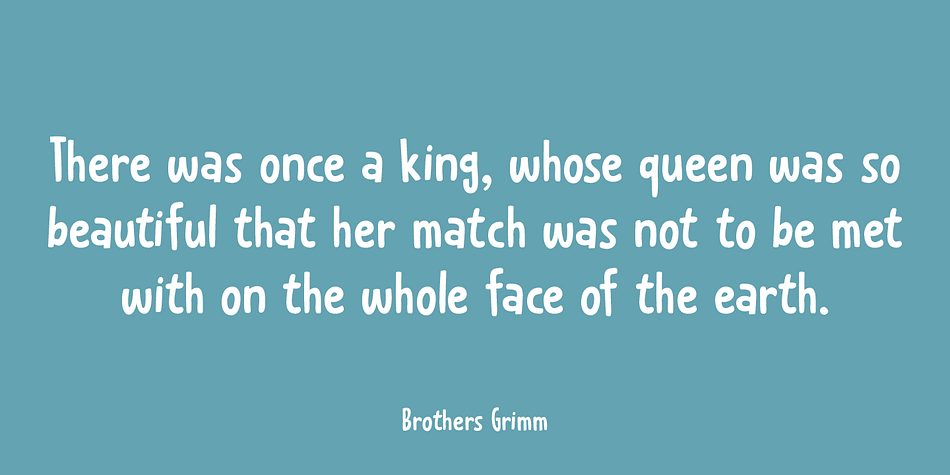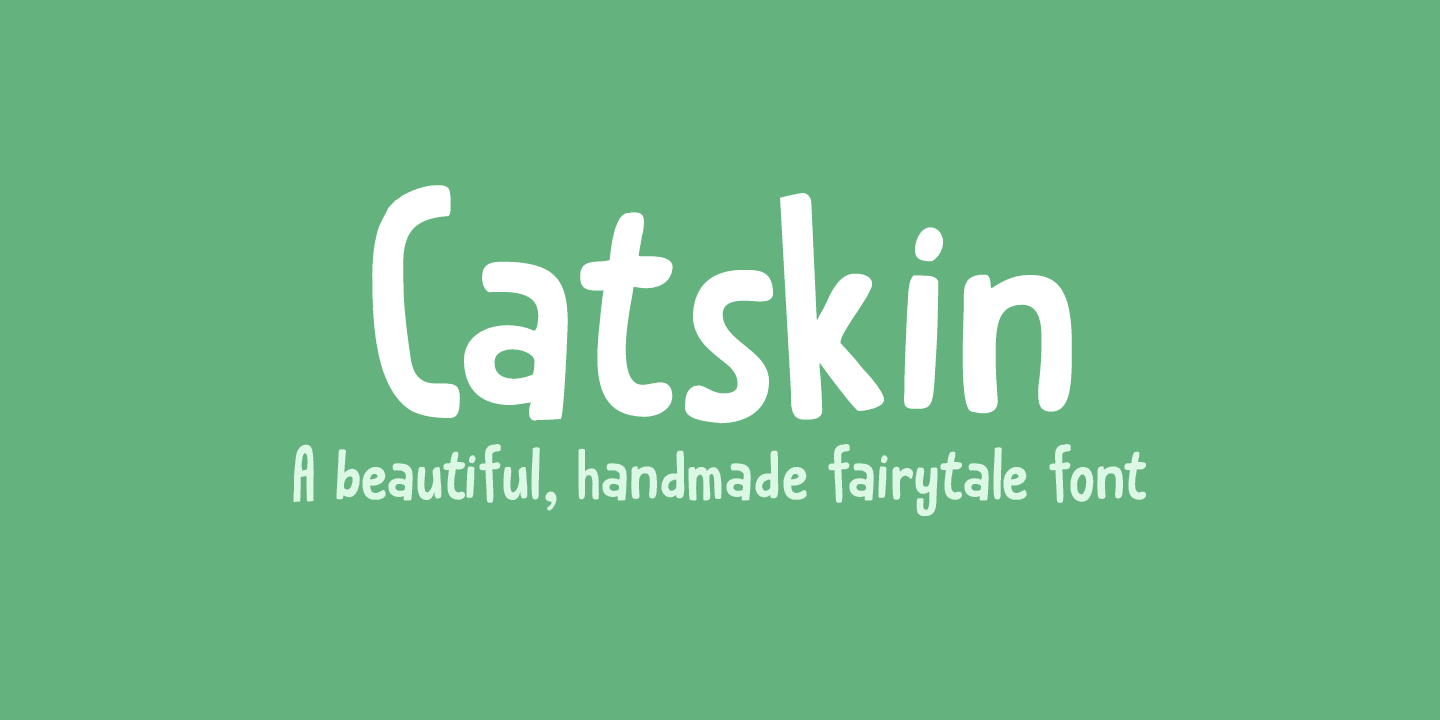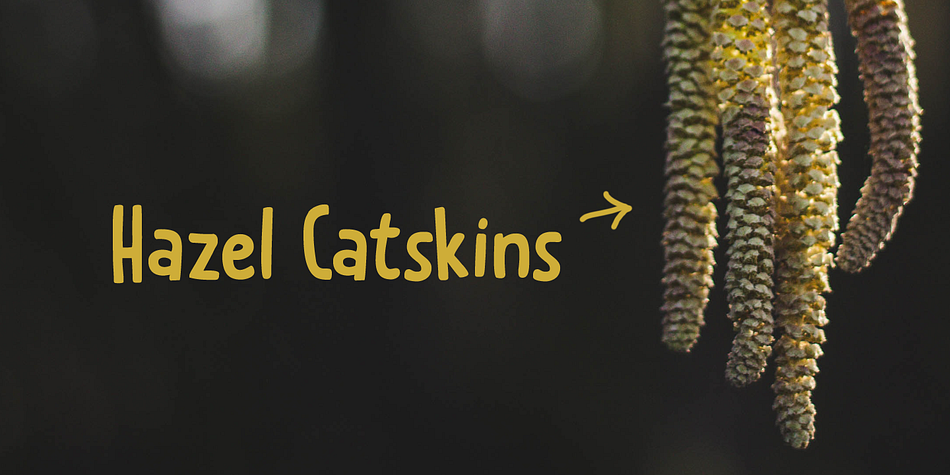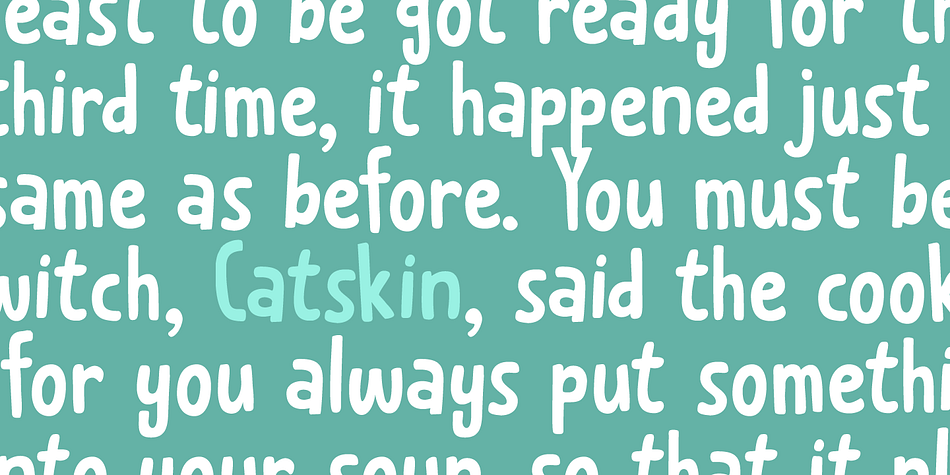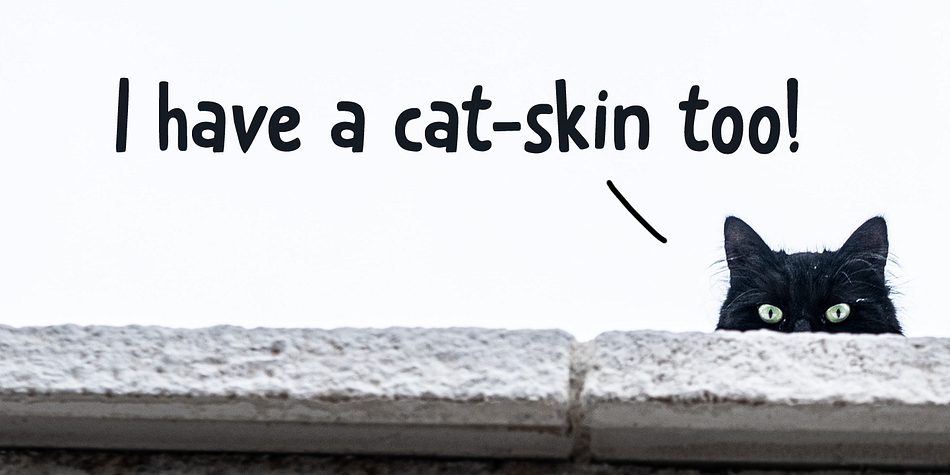
Catskin
Designed by David Kerkhoff, Catskin is a hand display font family. This typeface has two styles and was published by Hanoded.
Catskin is a fairytale by The Brothers Grimm. The story is about a king who has a beautiful wife and daughter - you know, the basic fairytale stuff. Long story short: they all live happily ever after (except for the wife, who dies…).
Catskin is also a nice, handmade font. I like making fairytale fonts, especially since I have three kids, who love books. And when I see one of my fonts on the cover, I can tell them: ‘daddy made this’. #prouddaddy